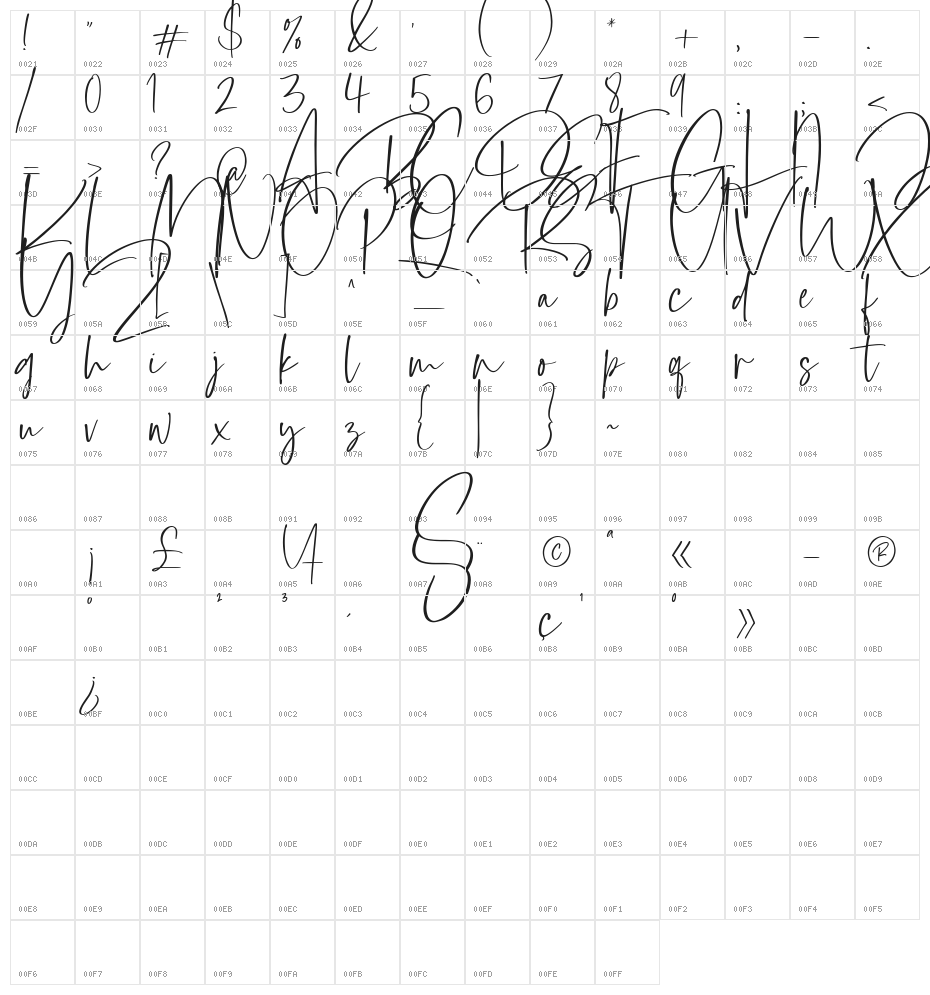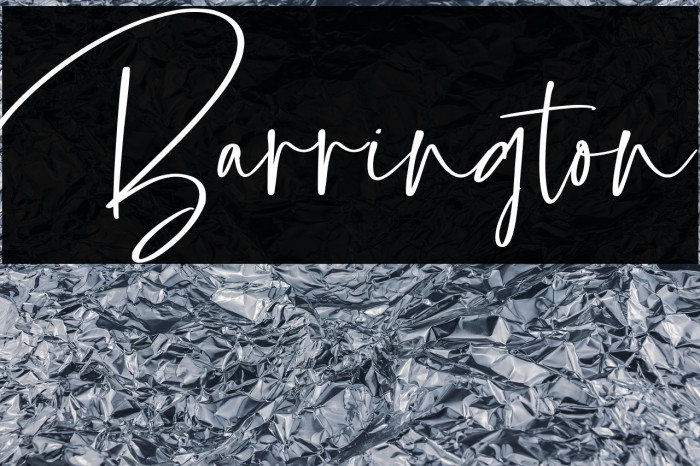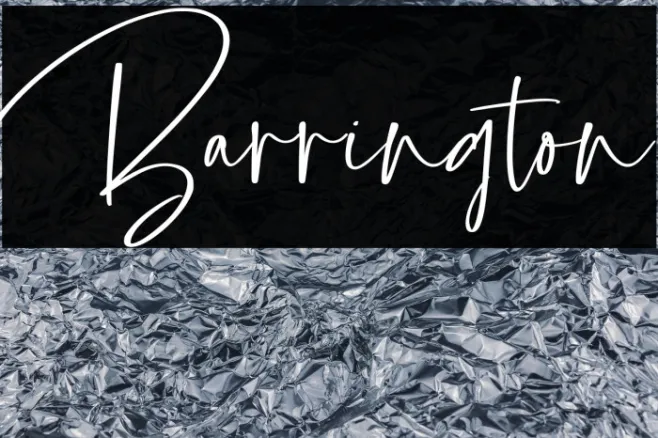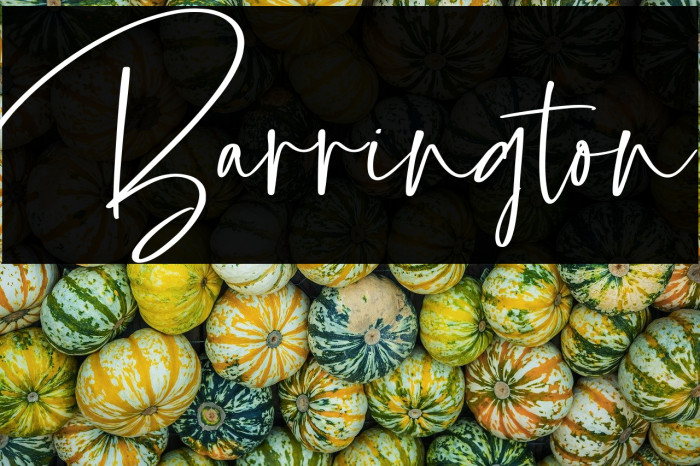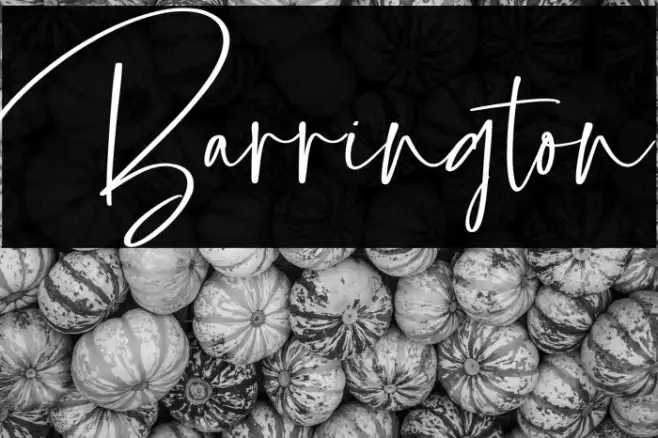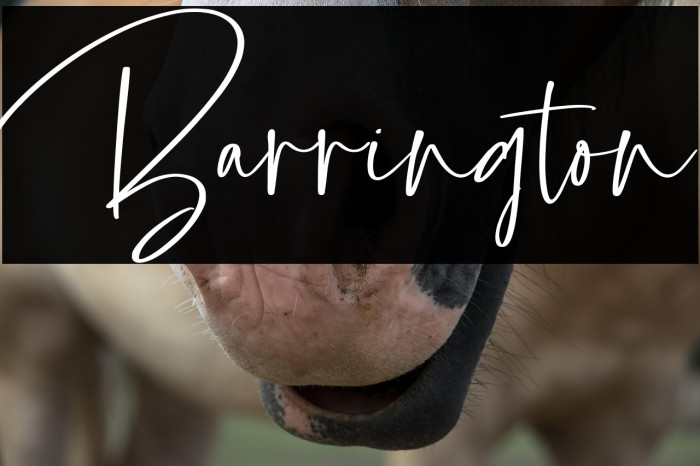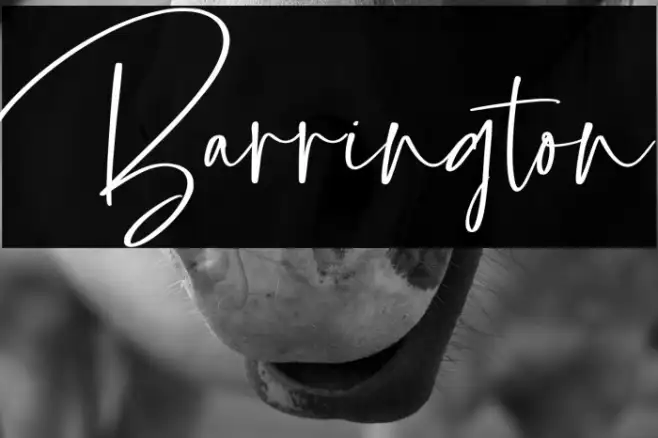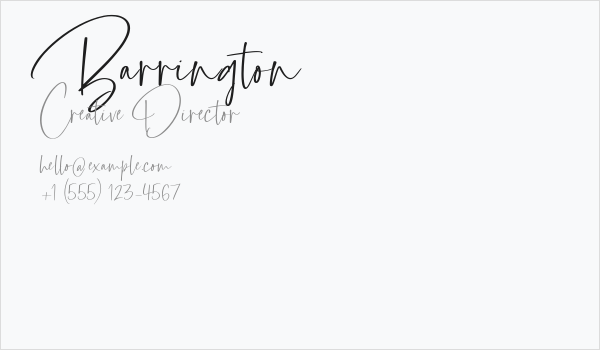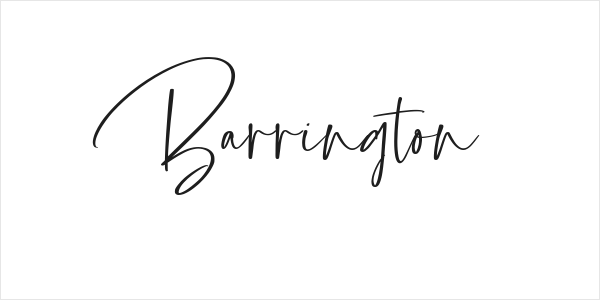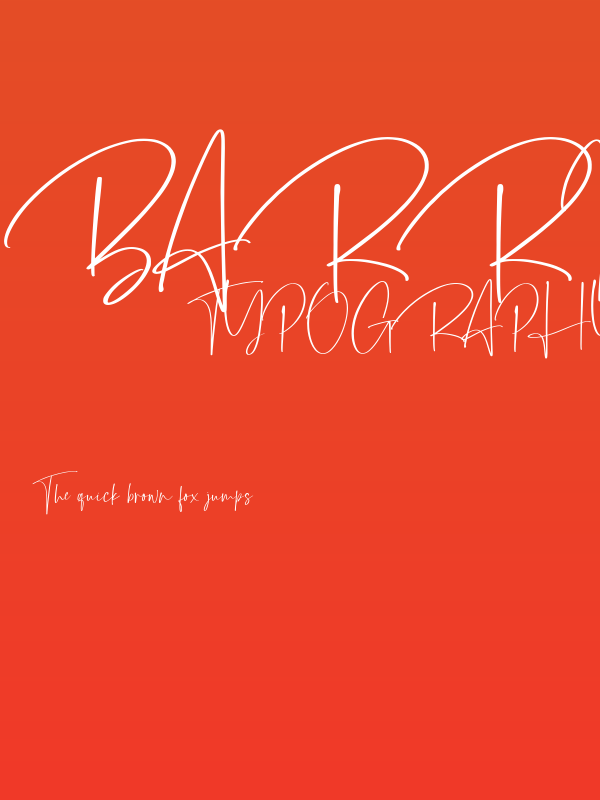
Barrington Font
Barrington Description
This font features a dynamic and fluid handwritten style, characterized by its elegant and flowing letterforms. The uppercase letters exhibit a graceful yet slightly irregular stroke, giving a personal and artistic touch. The lowercase letters maintain a consistent rhythm, with smooth curves and a natural slant that enhances the handwritten feel. Numbers and special characters are crafted with the same attention to detail, ensuring a cohesive look across all elements. The overall appearance is both sophisticated and approachable, making it suitable for a variety of creative applications.